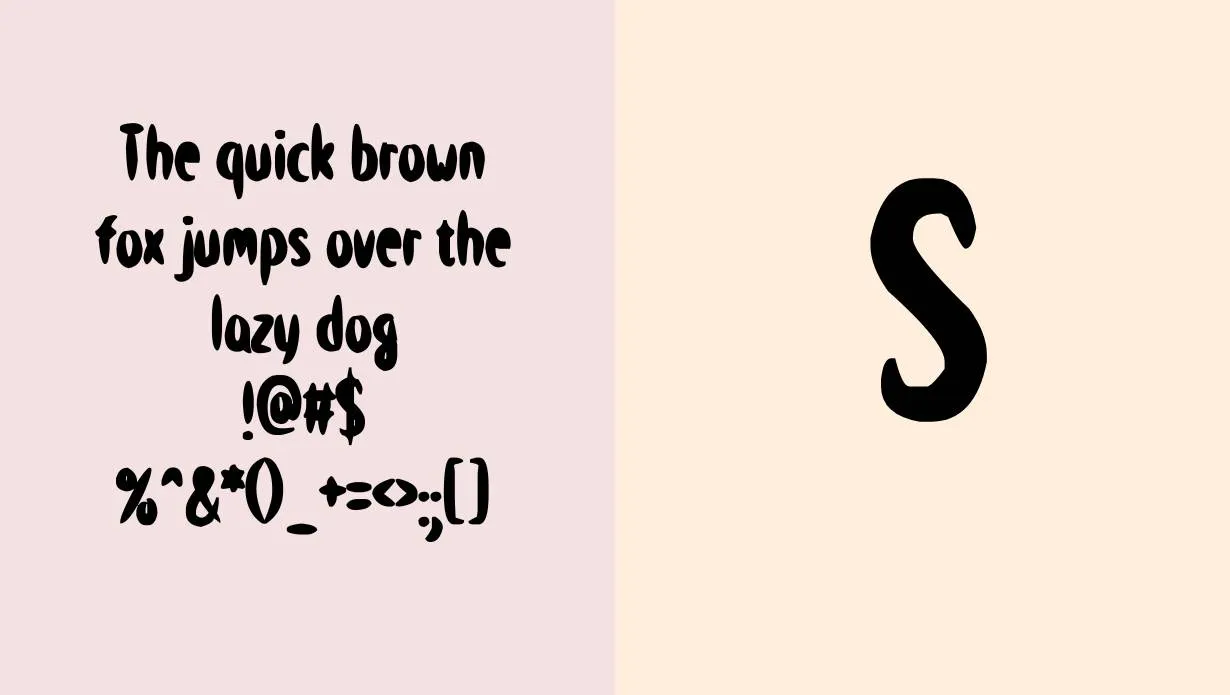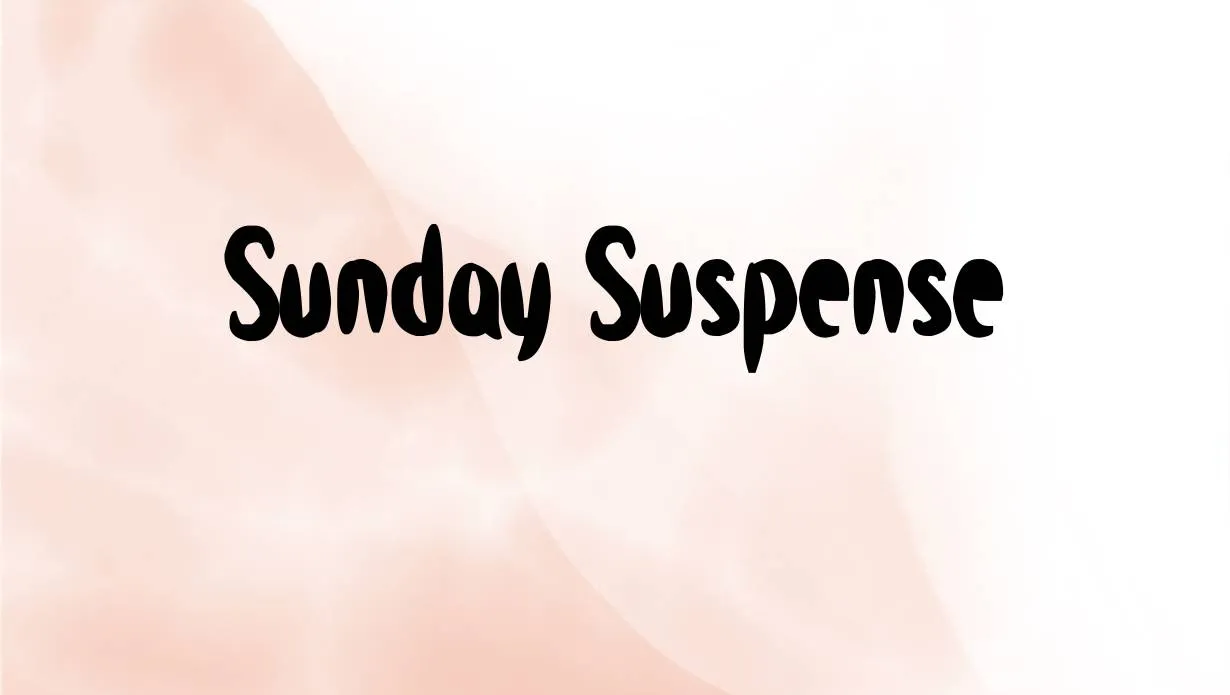
Sunday Suspense Font is a nice display typeface. It can be used to create amazing and attractive project content for clients. The typeface has a smooth, clear, and strong design style. This style has gained lots of appreciation throughout the world.
This typeface is perfect for pairing with any other similar style. To create exclusive and trendy designs for clients this typeface is a wonderful option. It creates an aesthetic style that makes it perfect to attract the viewers’ attention. appealing designs. This font has a stunning high-quality design.
Users can try this lovely font for making fabulous and unique projects. With an online generator tool facility, you can make easily amazing designs that can be seen the computer screens. Several designers have used this remarkable font for designing their personal projects.
Usage of Sunday Suspense Font
By using this style, you can make business plan layouts, website designs, t-shirt logos, and more. It is also valuable for making card designs like wedding cards, welcome cards, and other projects.
The style is amazing for industrial and automobile designs on a global scale. While using this typeface you can design promotions, brand management, and brand image. Additionally, this family is utilized for product labeling and packaging, Instagram posts and images, etc.
Where can we utilize Sunday Suspense Font?
You can utilize this inspiring typeface in brand logo designing, business plan layouts, website designs, t-shirt designs, and more.
What type of Sunday Suspense texture?
It is a nice display text style to create unique and attractive content.
Is Sunday Suspense typeface having good readability?
Sunday Suspense typeface has good readability even from a distance you can read the text design clearly.